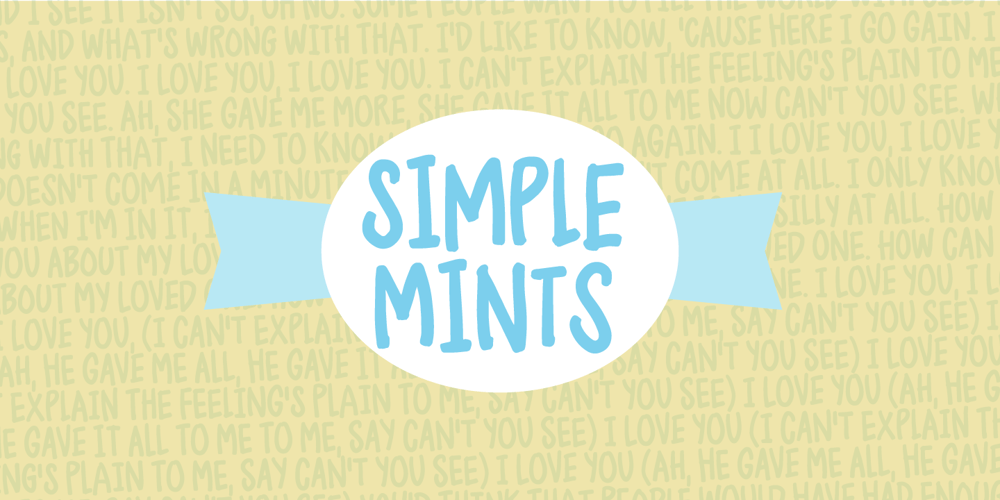
Simple Mints Font Family was designed by Jakob Fischer and published by PizzaDude.dk. Simple Mints contains 2 styles and family package options. You may already found out that “Simple Mints” is a wordplay. The font itself is playful as well – the 5 different versions of each letter makes sure that your text is lively and playful!Inspiration comes from both grafitti and comics…and my usual kind of sloppy handwriting – a mix that makes a great impression! 🙂